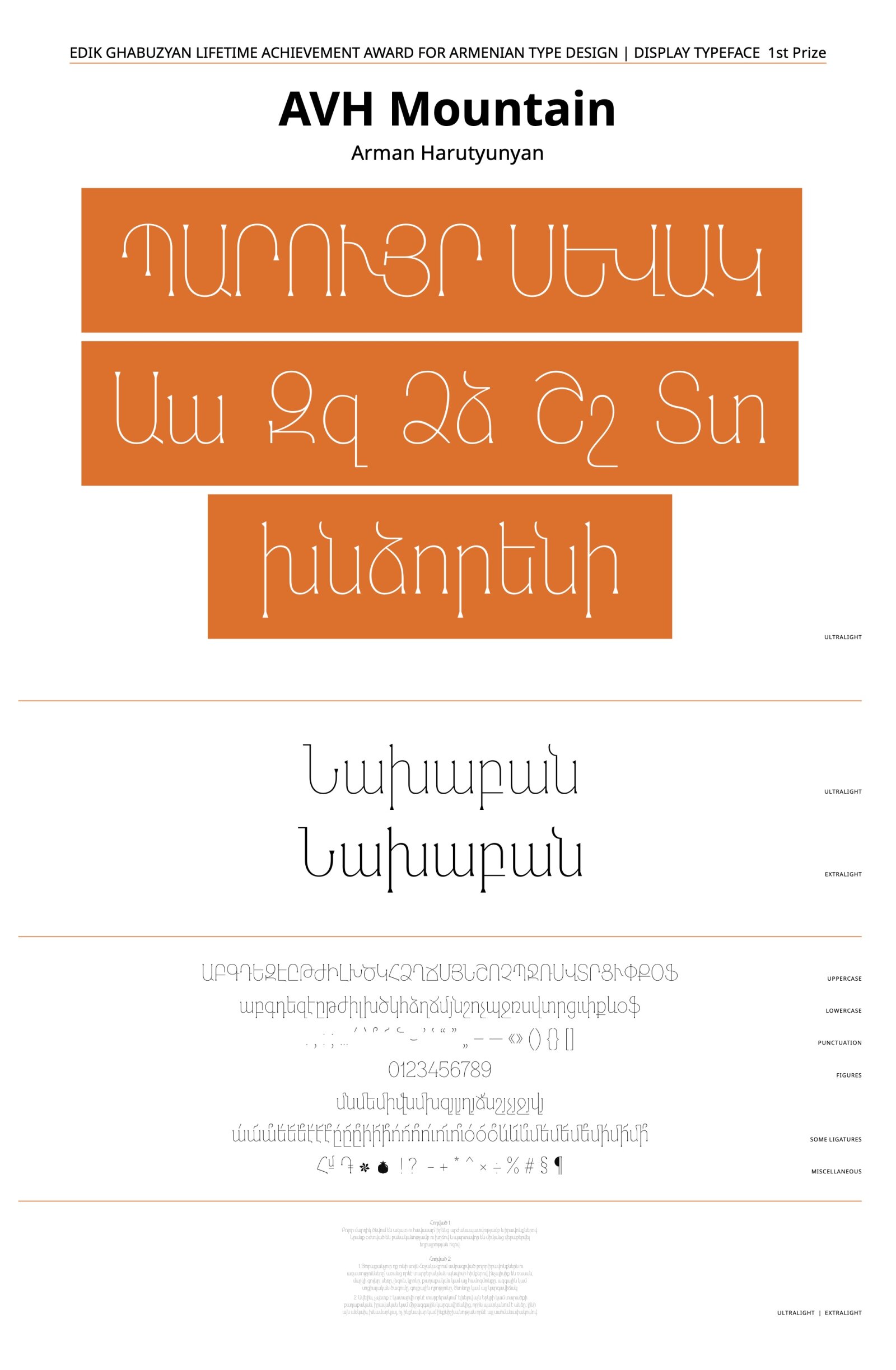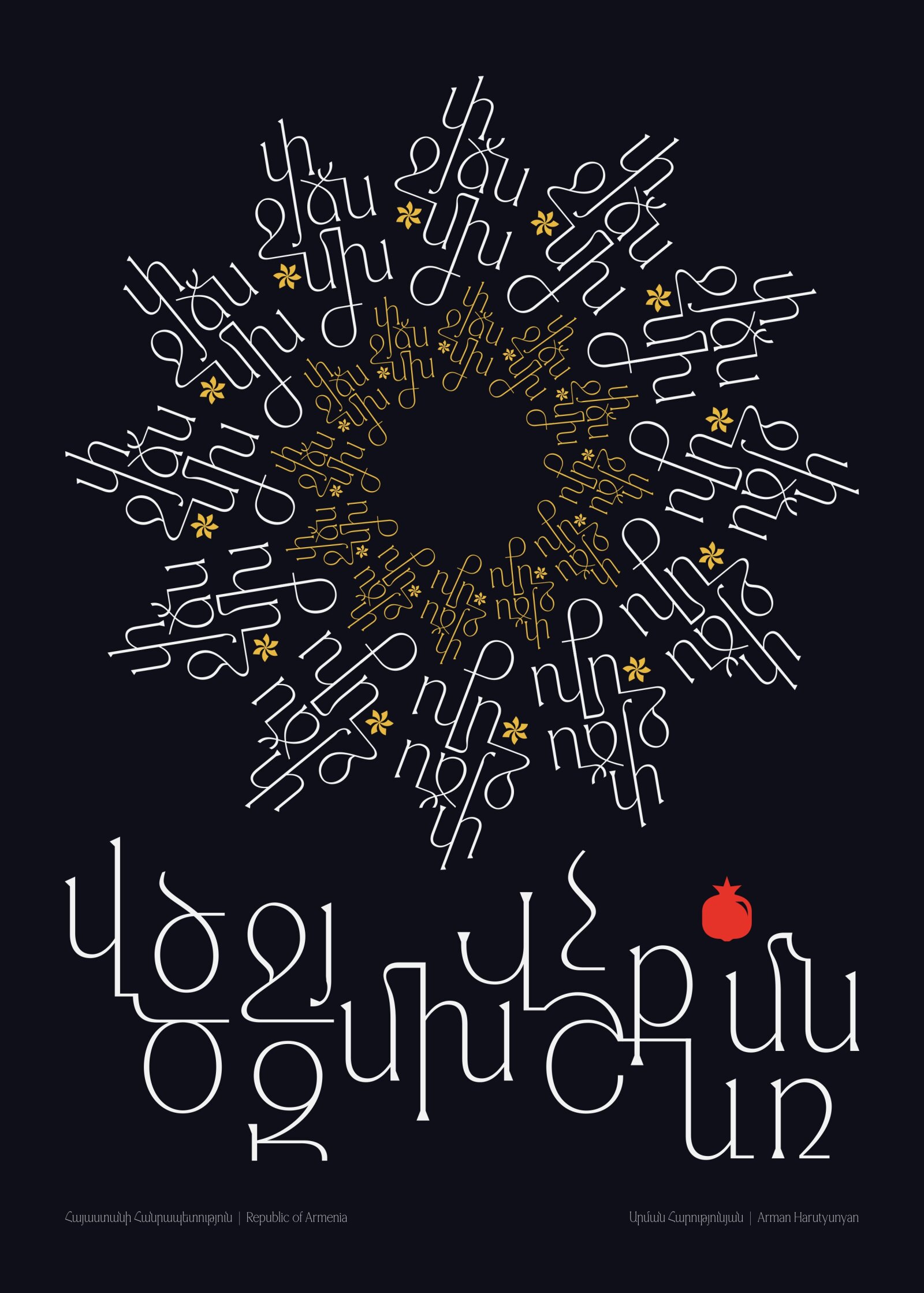
AVH Mountain
by Arman Harutyunyan
Armenian Special – Ghabuzyan Lifetime Award
UltraLight and ExtraLight weights of the typeface are ideally suited for employment as display fonts, suitable for titles, posters, and similar applications.